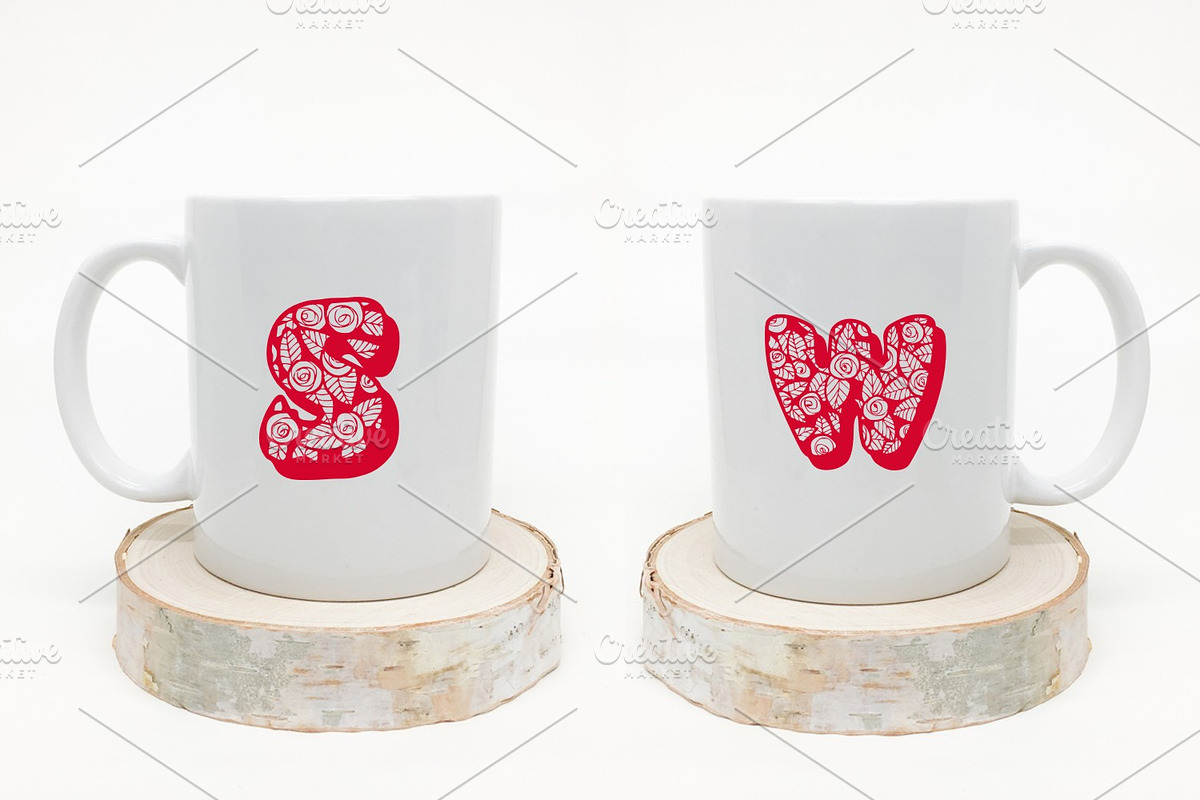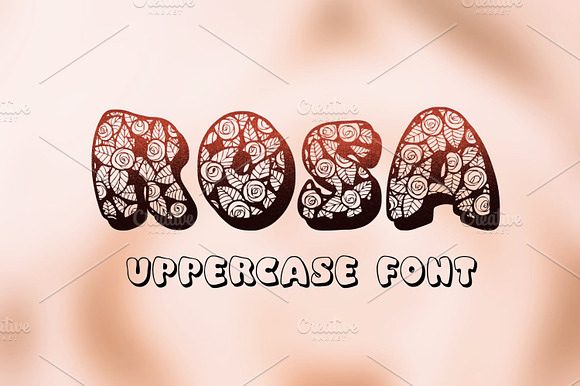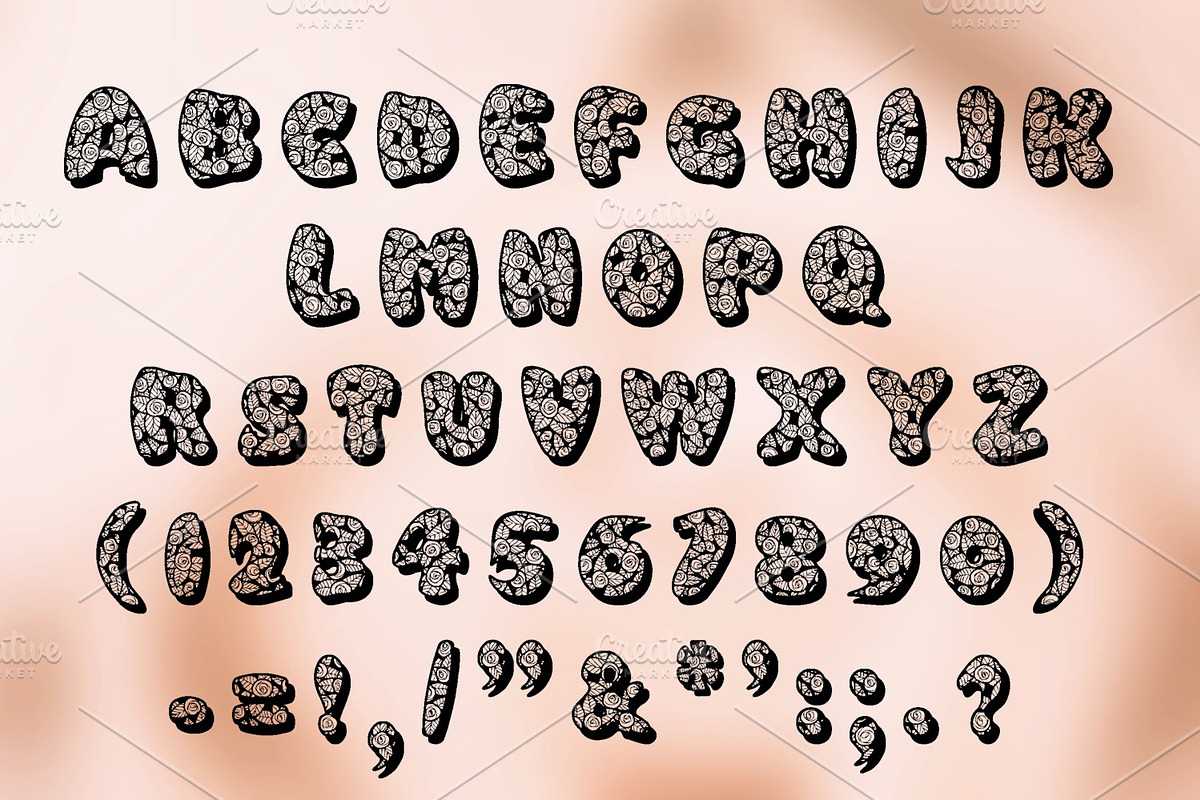
Rose
- Introducing Rosa uppercase typeface.
Why Rose is worth a look
Rose by Digital Typeface Studio fits naturally into Branding, posters, packaging, typography.